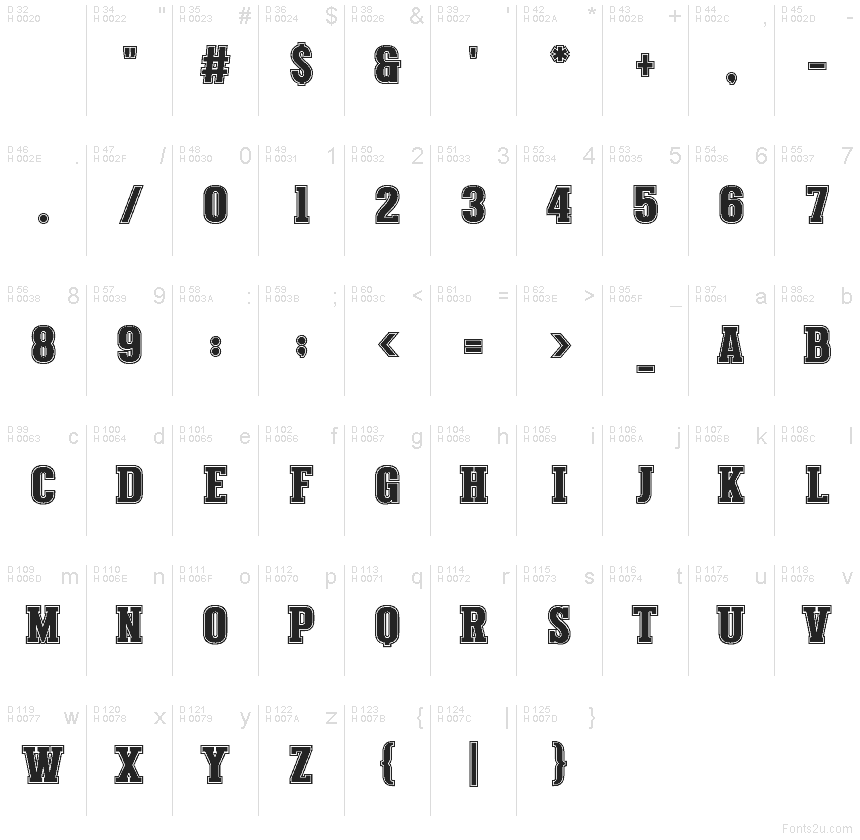
Varsity Signature Outline
Varsity Signature Outline font by Blankids is a free bold outline slab-serif display font. Part of the Varsity Signature family, it stands out with chunky block letters, square-cut slabs, and a clean inner contour that creates a stitched, letterman-jacket vibe. The double-edge outline adds punch without clutter, giving headlines that big-game energy while staying crisp and readable at a distance.
Using Varsity Signature Outline, you’ll nail sports branding, team jerseys, pep rally posters, campus merch, yearbook covers, and vintage athletic labels. This free font carries a steady rhythm and confident spacing, so it scales from badges to banners without losing that old-school grit. Pair it with a simple grotesque sans for body copy, and tighten tracking slightly for compact, scoreboard-ready titles.